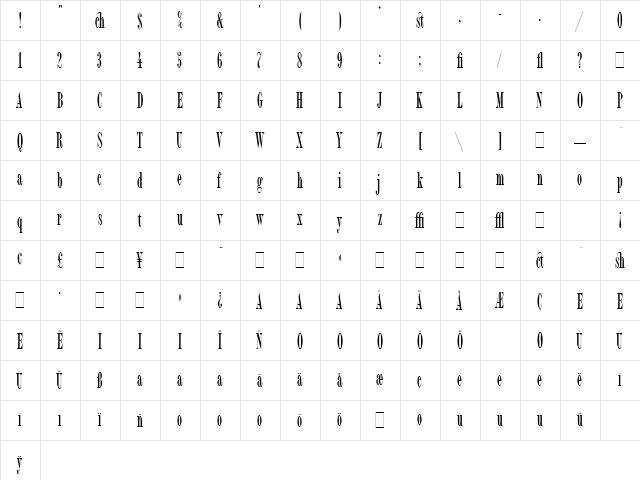
Bordeaux Roman Bold LET Plain
Design Context for Bordeaux Roman Bold LET Typeface
Bordeaux Roman Bold LET is a composed and adaptable typeface that performs quietly and consistently across a wide range of design contexts. The heavy weight commands attention and anchors typographic hierarchies.